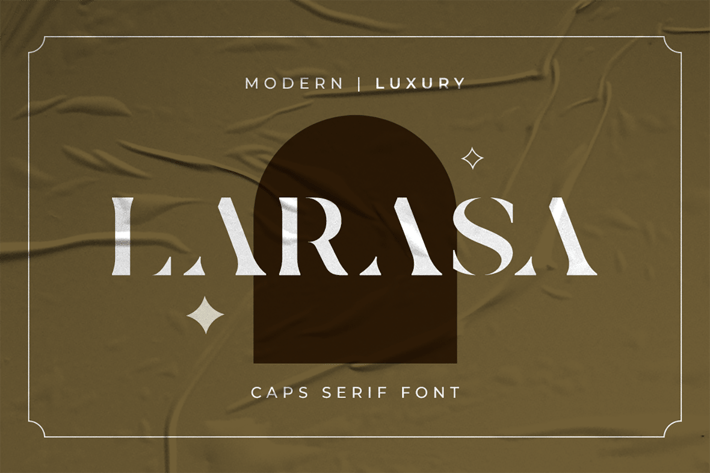
Larasa - Modern Luxury Serif Font
Introducing Larasa Font
This font is great for designing elegant logos, quotes, magazine covers, wedding cards, invitations, and brands. The additional indentation of the alternate letters will embellish the Heading text of your worksheets and projects